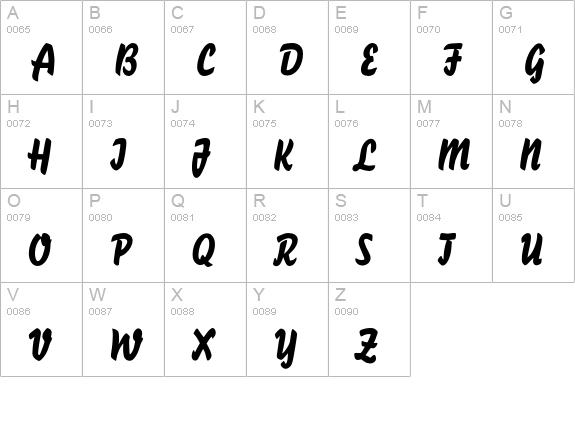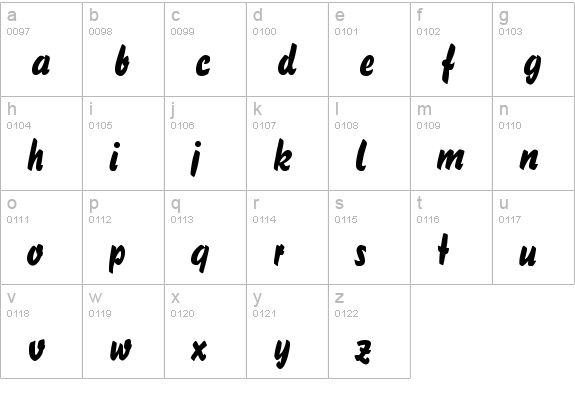
BisonLight Font Details
Introducing BisonLight, a sleek and modern typeface that exudes sophistication and elegance. With its clean lines and balanced proportions, BisonLight is perfect for a wide range of design projects, from branding to editorial layouts. This versatile font is ideal for conveying a sense of professionalism and style. What sets BisonLight apart is its versatility and readability, making it suitable for both digital and print applications. Whether you are designing a website, creating marketing materials, or crafting a logo, BisonLight will help your content stand out and make a lasting impression. And the best part? BisonLight is completely free to download at FontsMarket.com. Yes, you heard that right - this high-quality font is available at no cost, allowing you to elevate your design projects without breaking the bank. Don't miss out on the opportunity to add BisonLight to your font collection today and unlock endless creative possibilities!